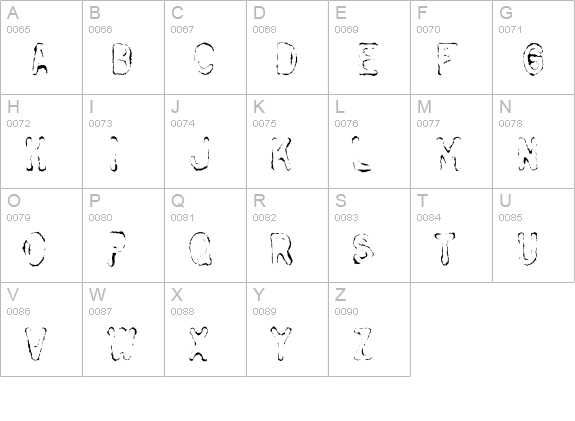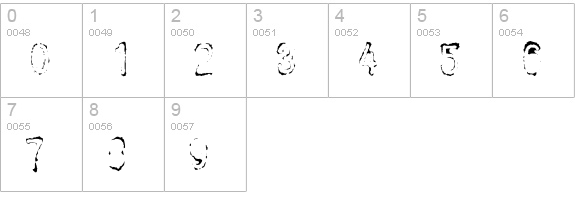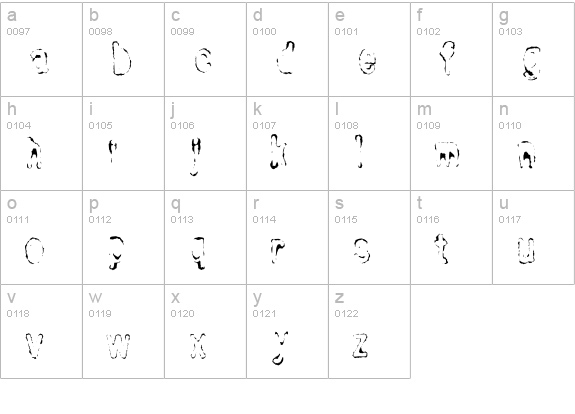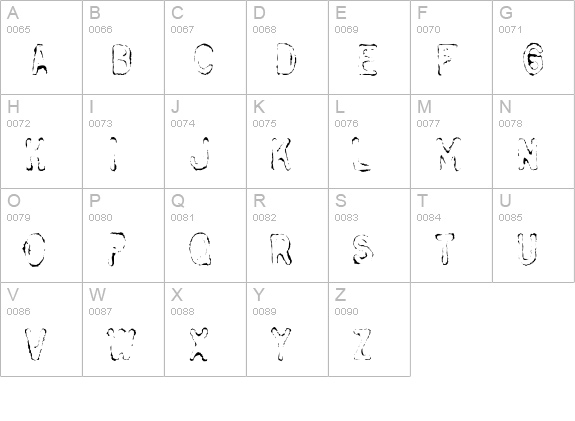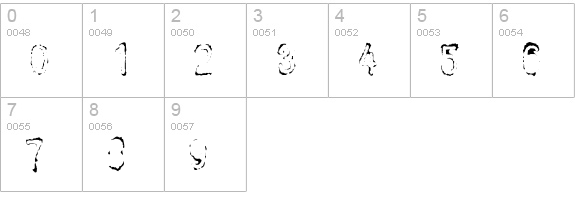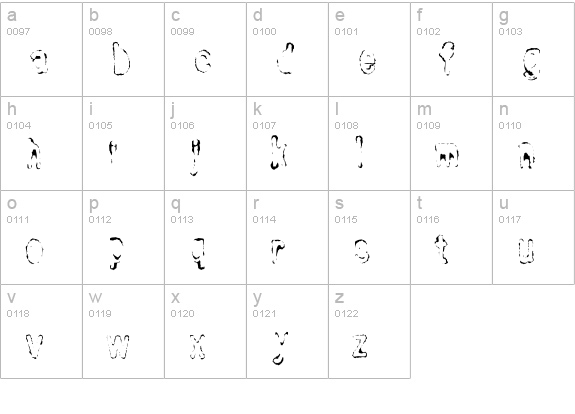
Bull-UnderInked Font Details
Introducing Bull-UnderInked font, a unique display typeface that effortlessly combines boldness with a touch of whimsical charm. With its slightly rough edges and distinct character shapes, this font exudes a sense of creativity and individuality. Perfect for headlines, posters, branding, and more, Bull-UnderInked adds a striking visual element to any design project. What makes Bull-UnderInked even more appealing is that it is available for free download at FontsMarket.com. This means you can easily access this eye-catching font and incorporate it into your creative endeavors without any cost. Don't miss out on the opportunity to enhance your designs with the distinctive style of Bull-UnderInked font - download it for free today!